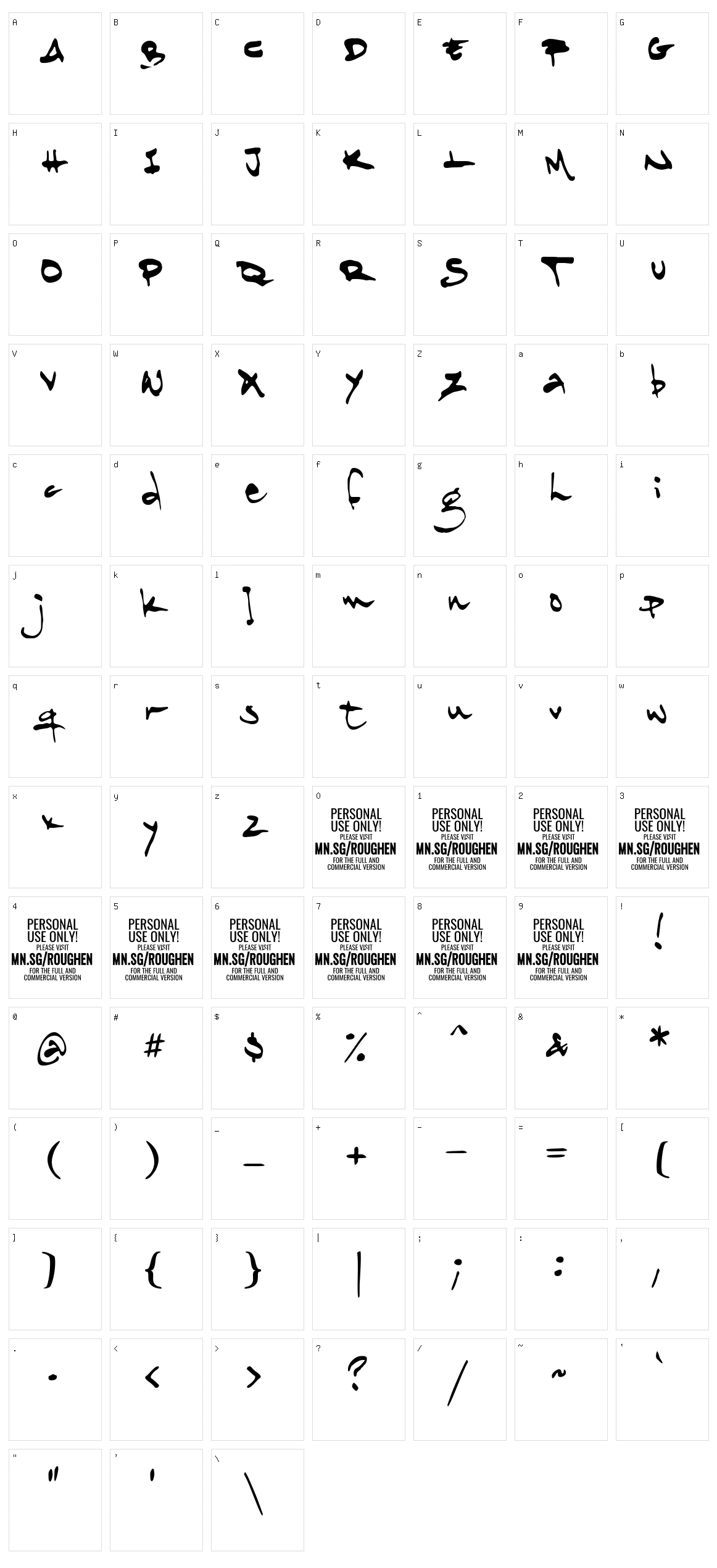
Roughen is a fast handwriting typeface.
It was drawn and created by Måns Grebäck between 2017 and 2020.
Roughen has a rugged and active style, designed with a wet calligraphy pen.
It contains multiple alphabets, automatically applied with contextual alternates to simulate the variation of handwriting, or manually with stylistic alternates.
The font is multilingual and contain all characters you'll ever need, including all punctuation and numbers.